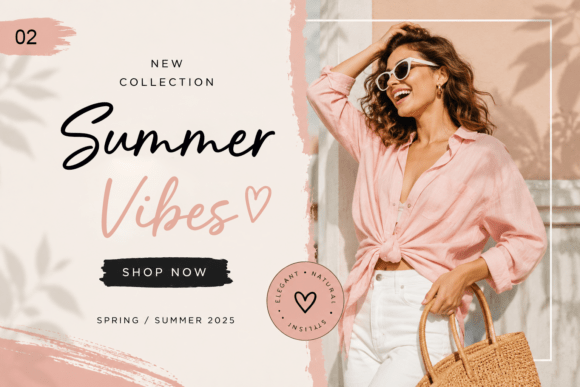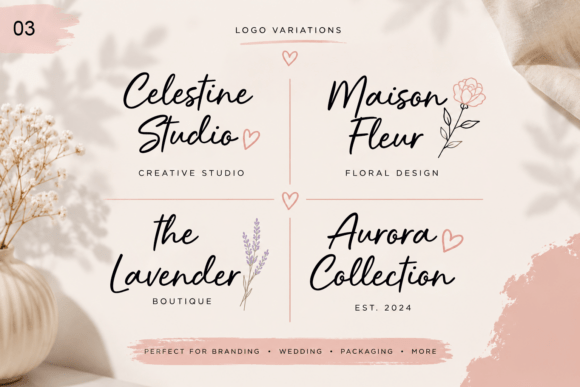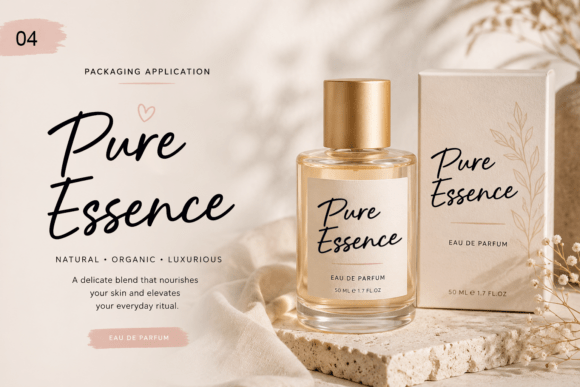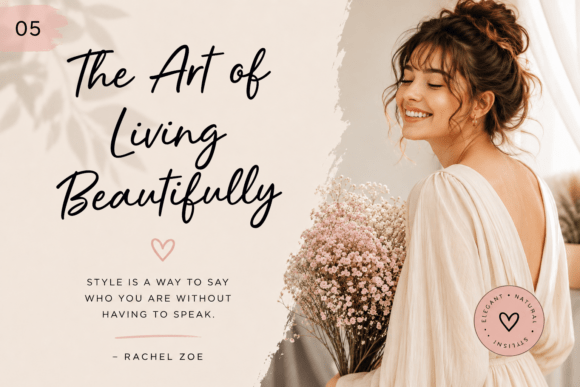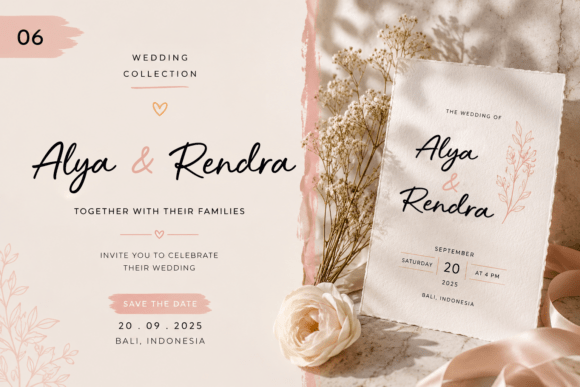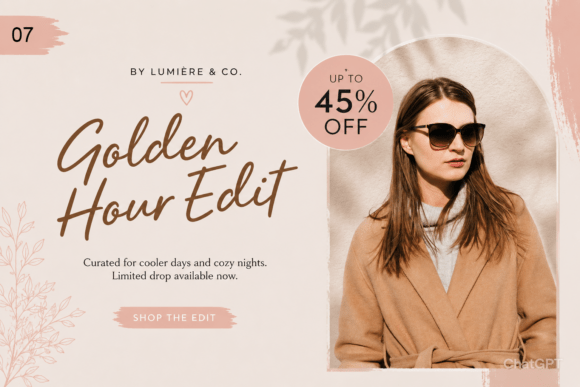
Introducing Celestine Scription: Elevate Your Designs with Elegant Simplicity
In the world of typography, a well-crafted font can make all the difference in elevating a design from ordinary to extraordinary. For designers and crafters seeking a touch of elegance and personality in their projects, Celestine Scription emerges as a standout choice. This graceful yet effortlessly chic casual script font is designed to capture the essence of modern handwriting, bringing a personal and stylish touch to a wide range of applications.
The Beauty of Celestine Scription
At the heart of Celestine Scription’s appeal is its masterful blend of smooth curves, elegant strokes, and a natural flow that mimics the fluidity of handwriting. This font is not just a collection of characters; it’s an expression of artistry and sophistication. Each letterform is meticulously crafted to contribute to a cohesive and harmonious look, ensuring that any project it adorns exudes a sense of refinement and poise.
Key Features of Celestine Scription
- Smooth Curves and Elegant Strokes: The defining features of Celestine Scription are its smooth, flowing curves and elegant strokes. These elements combine to create a font that is both visually appealing and highly legible.
- Natural Flow: One of the hallmarks of great script fonts is their ability to convey a sense of natural, handwritten elegance. Celestine Scription excels in this regard, with a flow that feels organic and effortless.
- Versatility: Whether you’re working on a wedding invitation, a branding project, or a personal craft, Celestine Scription’s versatility ensures it can adapt to a variety of design needs. Its casual yet chic nature makes it suitable for both formal and informal projects.
- Legibility: In a world where readability is paramount, Celestine Scription shines. Its clear and distinct letterforms ensure that your message is conveyed with clarity, making it an excellent choice for both headings and body text.
Use Cases for Celestine Scription
The applications for Celestine Scription are vast and varied. Here are a few ideas to get you started:
- Wedding and Event Stationery: Add a touch of romance and sophistication to wedding invitations, save the dates, and other event-related materials.
- Branding and Packaging: Elevate your brand’s aesthetic with a font that communicates elegance and refinement. Celestine Scription can be used in logos, product labels, and packaging designs.
- Personal Projects: Whether you’re creating handmade cards, scrapbooking pages, or DIY crafts, Celestine Scription can add a professional and stylish flair to your work.
- Digital Content: Enhance your digital presence with a font that stands out. Use Celestine Scription in blog headers, social media graphics, and website designs to create a memorable visual identity.
Celestine Scription is more than just a font; it’s a design companion that can transform your projects with its elegant simplicity and modern charm. Its unique blend of smooth curves, elegant strokes, and natural flow makes it an invaluable asset for designers and crafters looking to infuse their work with a personal, stylish touch. Whether you’re aiming for a sophisticated look or a more casual vibe, Celestine Scription is poised to become your go-to choice for a wide array of creative endeavors.
Embrace the beauty of modern handwriting with Celestine Scription. Explore its capabilities, experiment with its potential, and discover how this graceful script font can elevate your designs to new heights of elegance and sophistication.